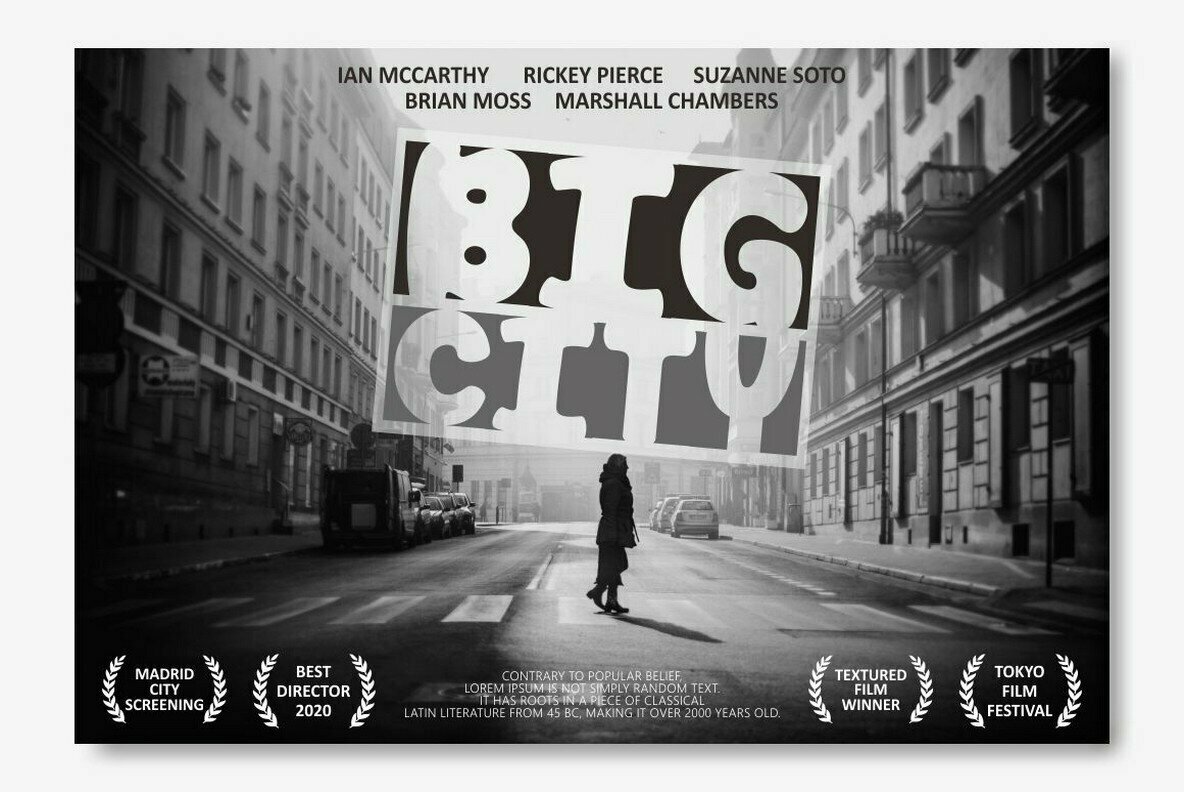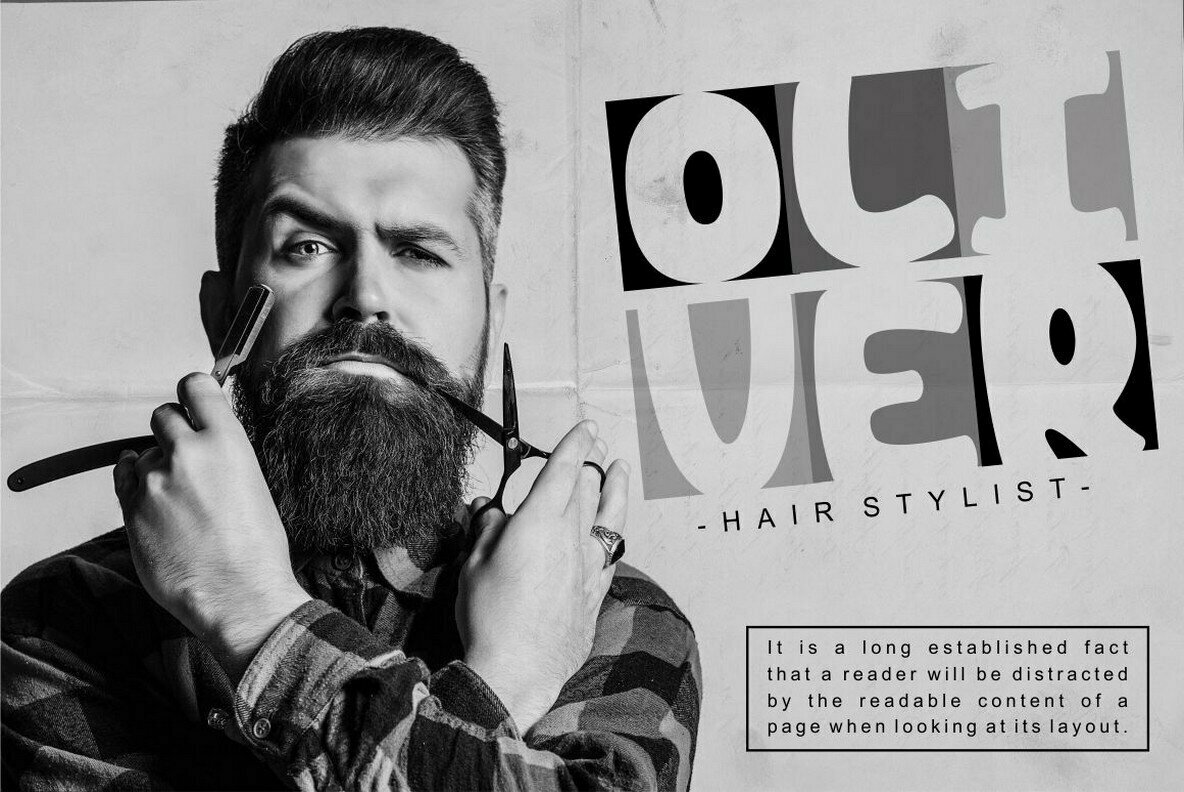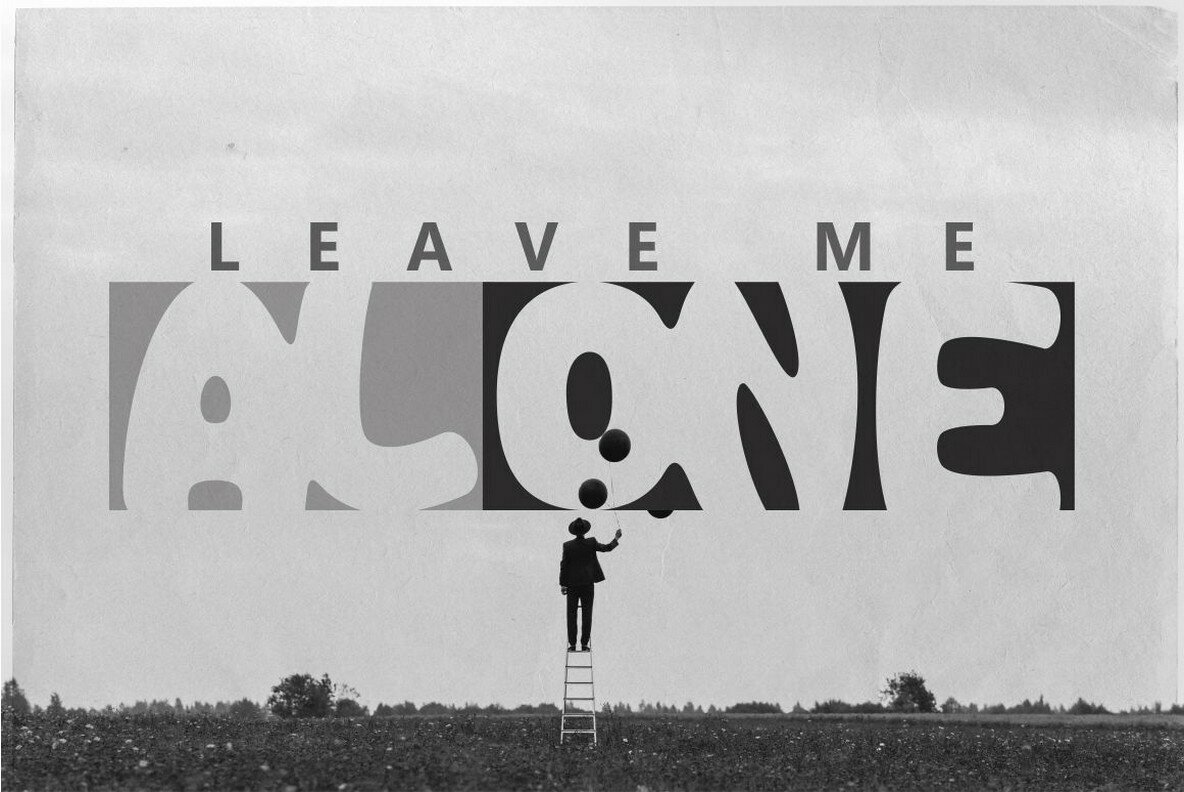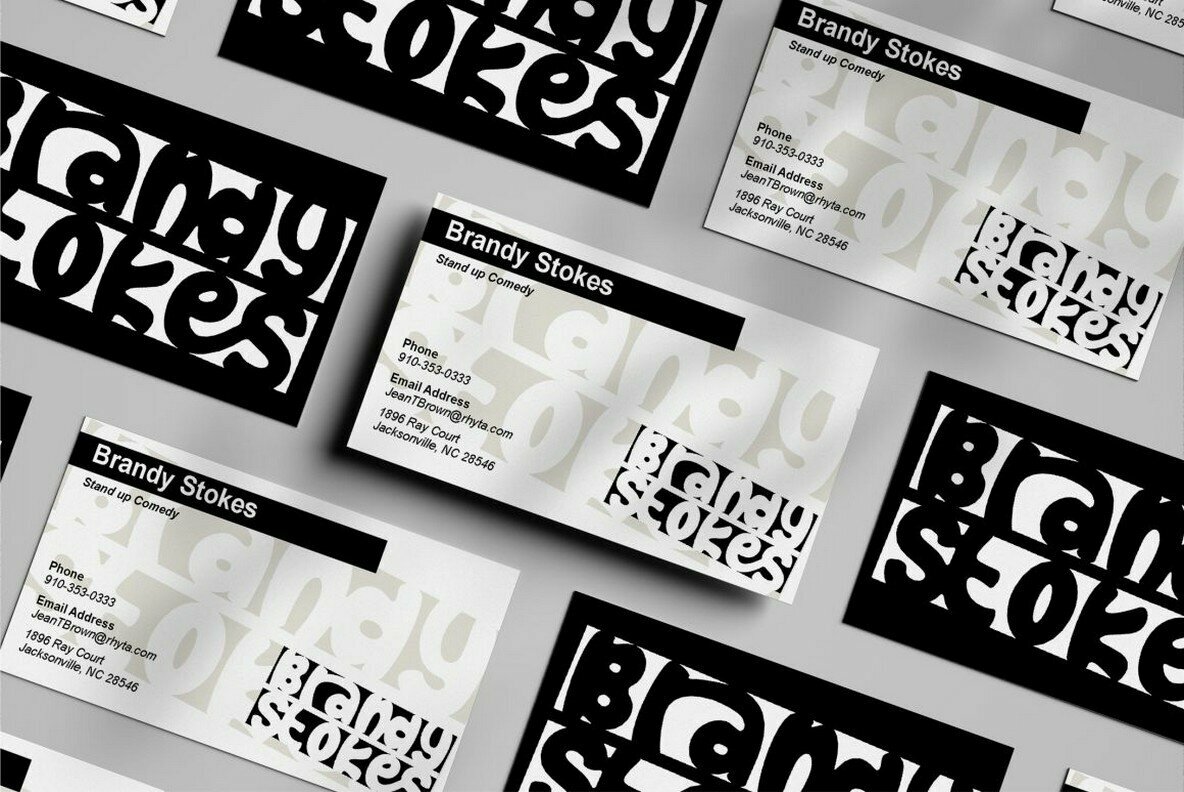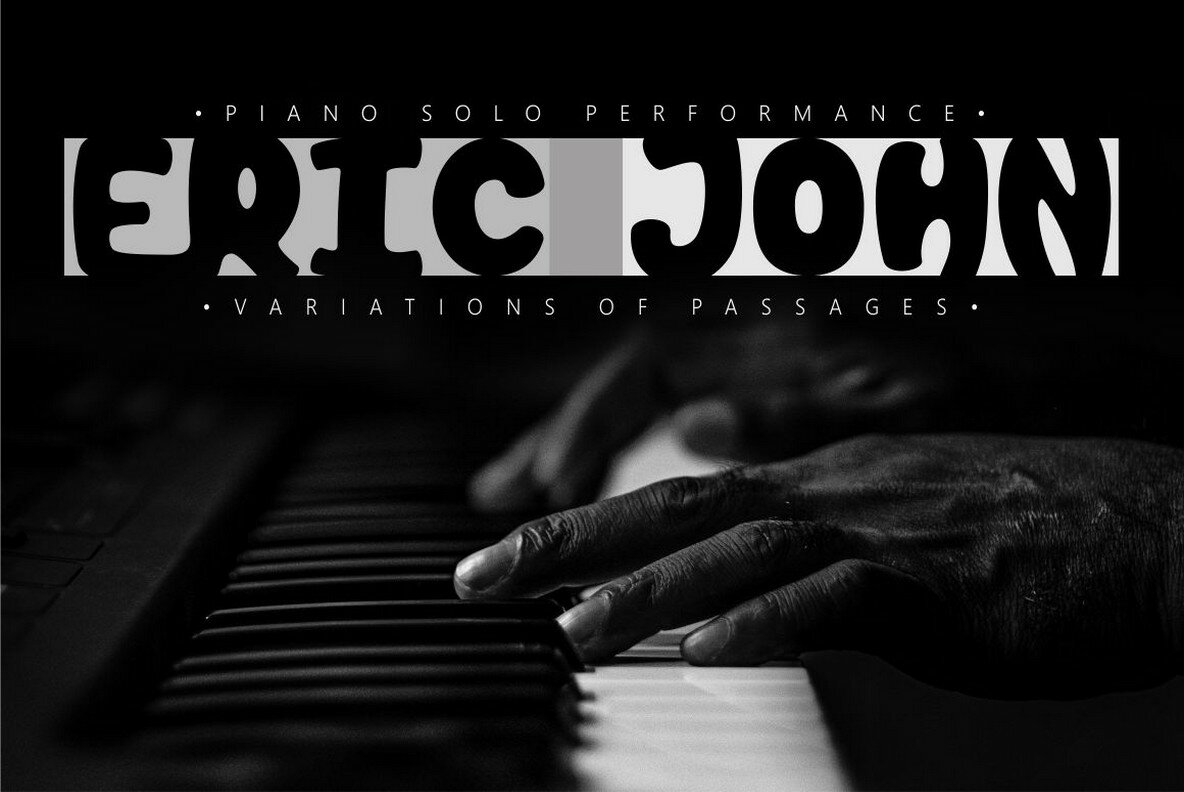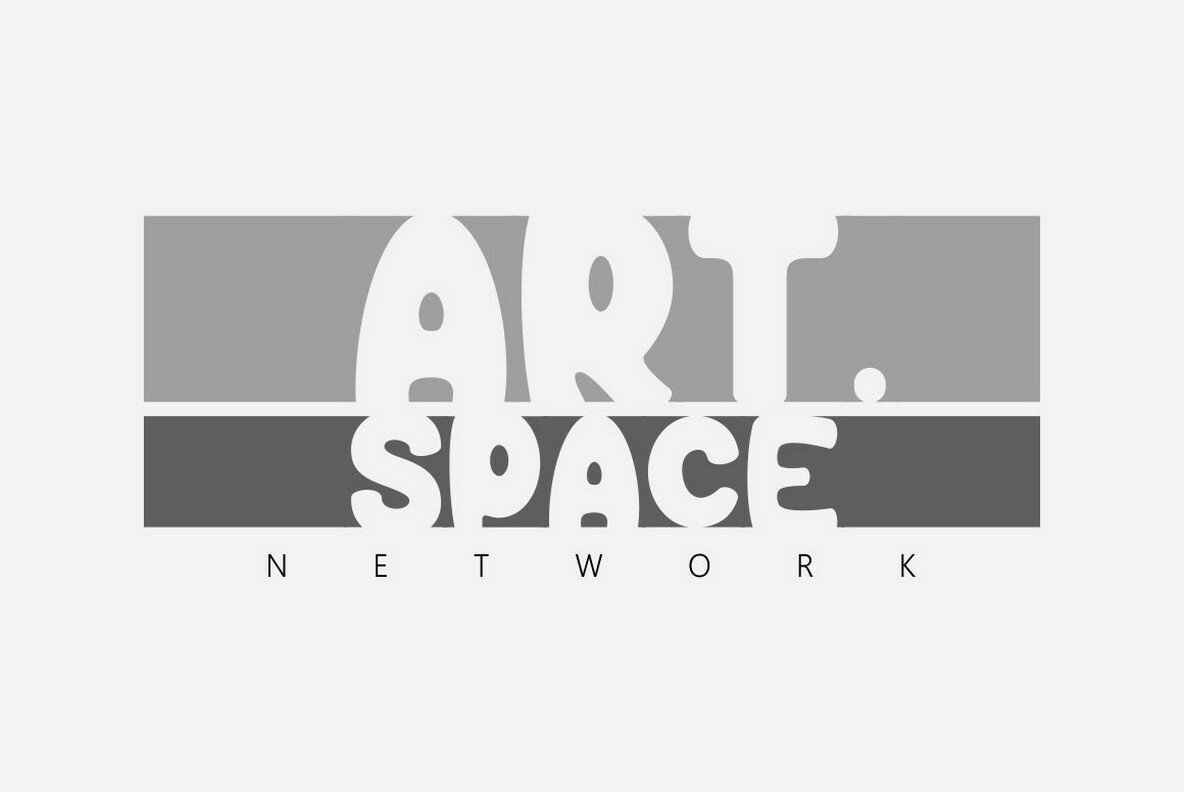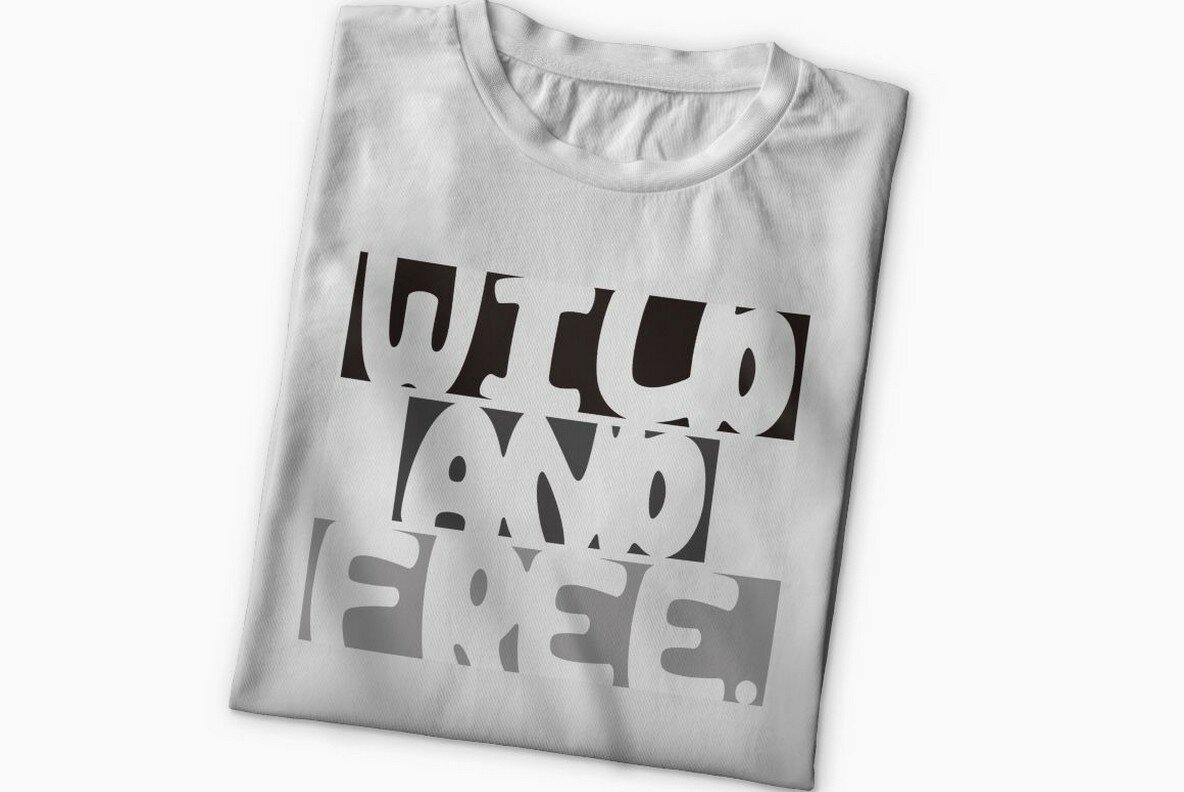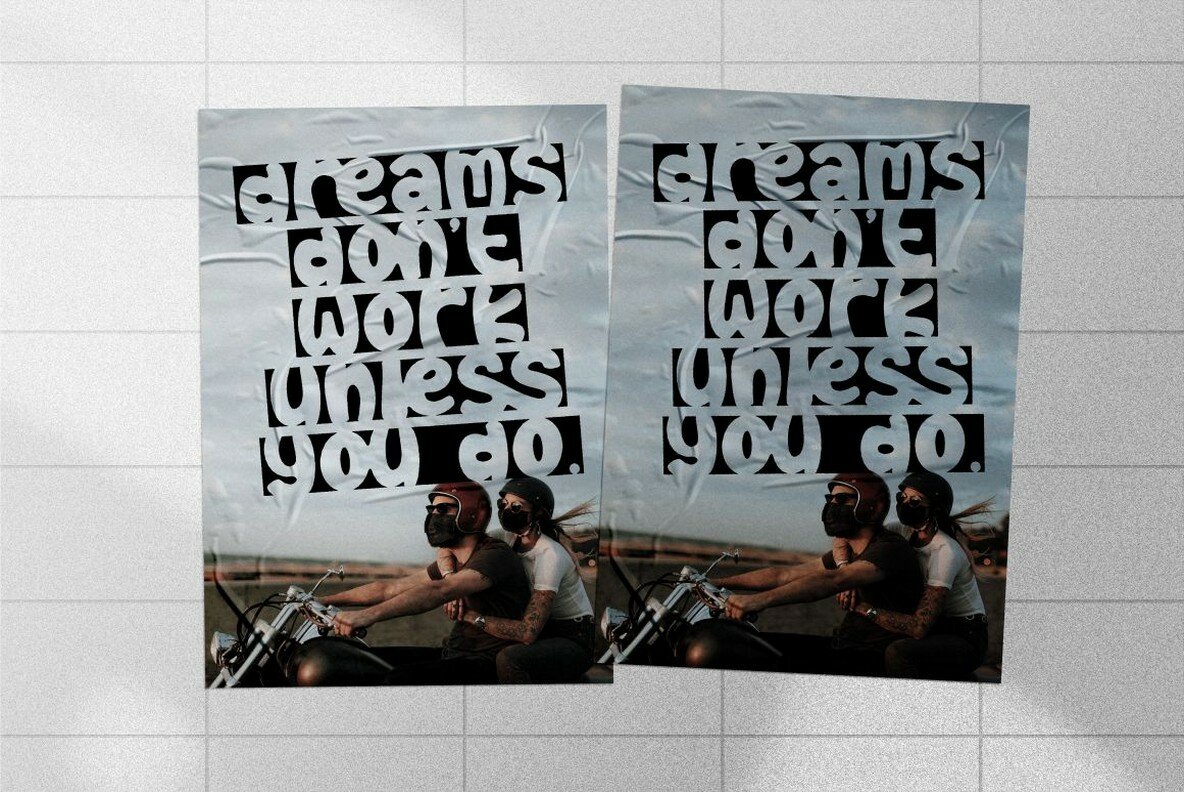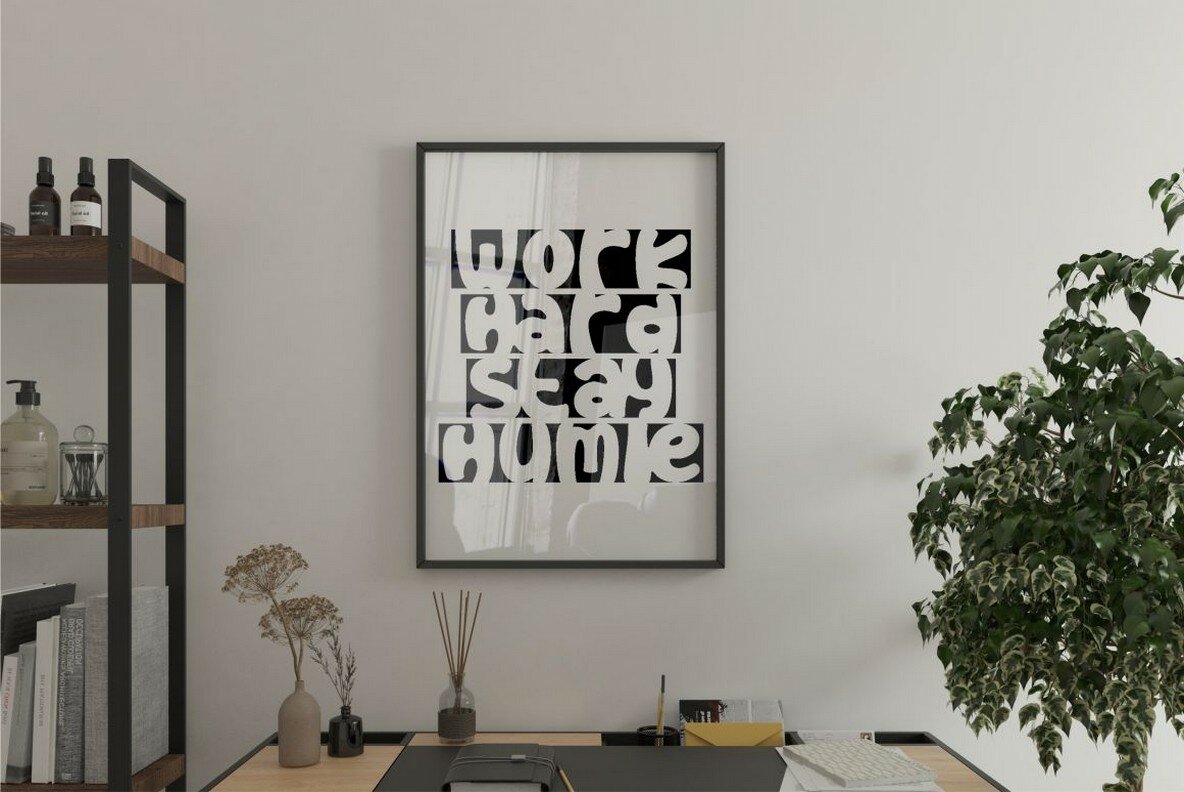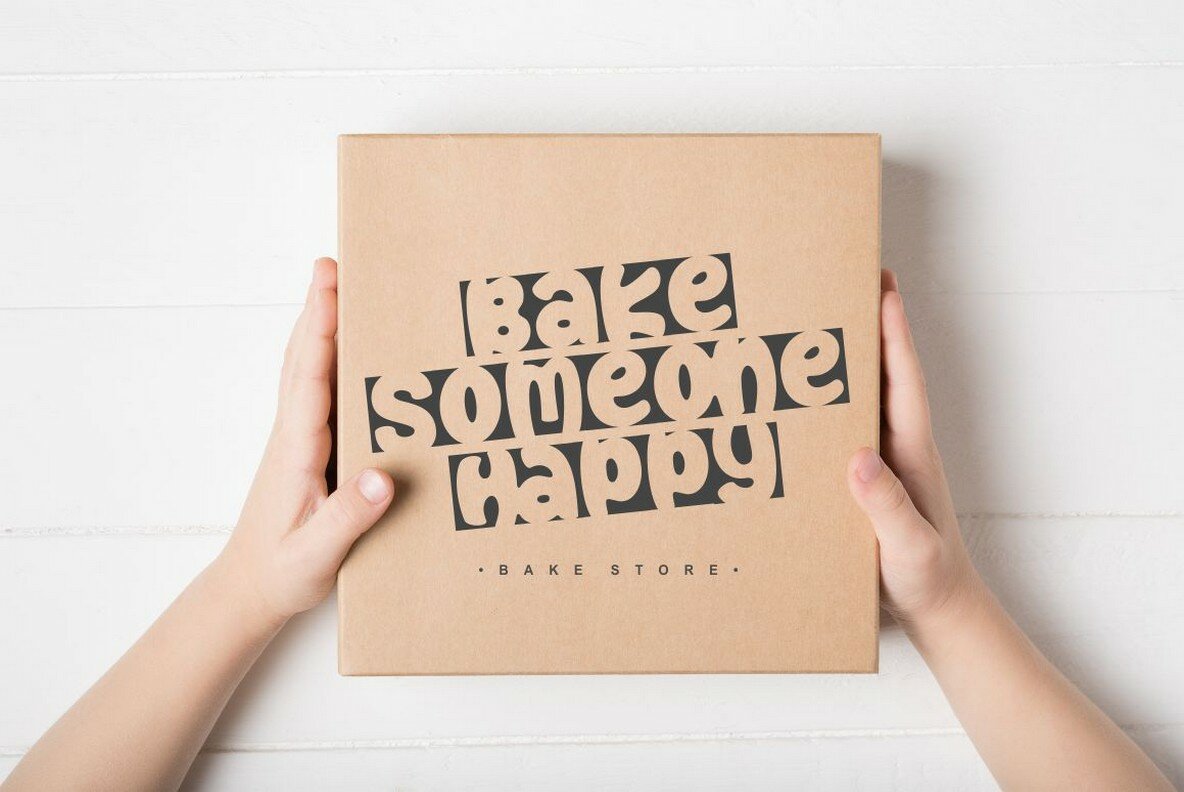
Block Space Font
Block Space
Block Space harnesses the power of negative space to offer a versatile and sophisticated type choice. This font is ideal for projects ranging from branding and logo creation to fashion, posters, and invitations. Designed to add a distinctive touch, Block Space seamlessly integrates into any creative endeavor.Block Space: Negative Space Font for Creative Projects